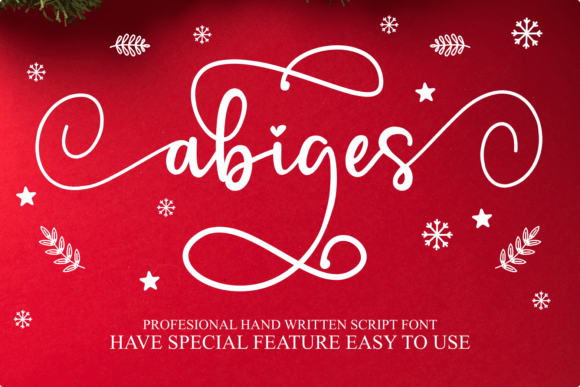
Step into the world of Abiges Font, a captivating script typeface that will ignite your designs with a touch of elegance and charm. Abiges is more than just a font; it's an artistic expression that dances upon the baseline, adding a touch of luxury to every project it graces.
Crafted by the skilled hands of Infontree, Abiges is a font that spells romance and sweetness. Its characters flow effortlessly, like a graceful ballet, creating a symphony of beauty on the page. Dive into a world of endless creativity, where Abiges transforms your words into exquisite works of art.
With Abiges, you'll discover a font that not only captures attention but also captivates hearts. Its delicate strokes and playful curves evoke a sense of nostalgia and timeless charm. Unleash your imagination and let Abiges guide you to create designs that resonate with your audience, leaving an imprint that lingers in their minds.
But Abiges is not just about aesthetics; it's also remarkably versatile. Whether you're crafting business letters, elegant invitations, or heartfelt greetings, Abiges adapts seamlessly to convey your message with grace and sophistication. Its PUA encoding ensures effortless access to a treasure trove of glyphs and swashes, empowering you to add intricate details and flourishes to your designs.
Join the Abiges revolution and elevate your designs to new heights. Experience the magic of a font that speaks to the soul, igniting emotions and leaving a lasting impression. Embrace the boundless potential of Abiges and unlock a world of creativity that knows no limits.